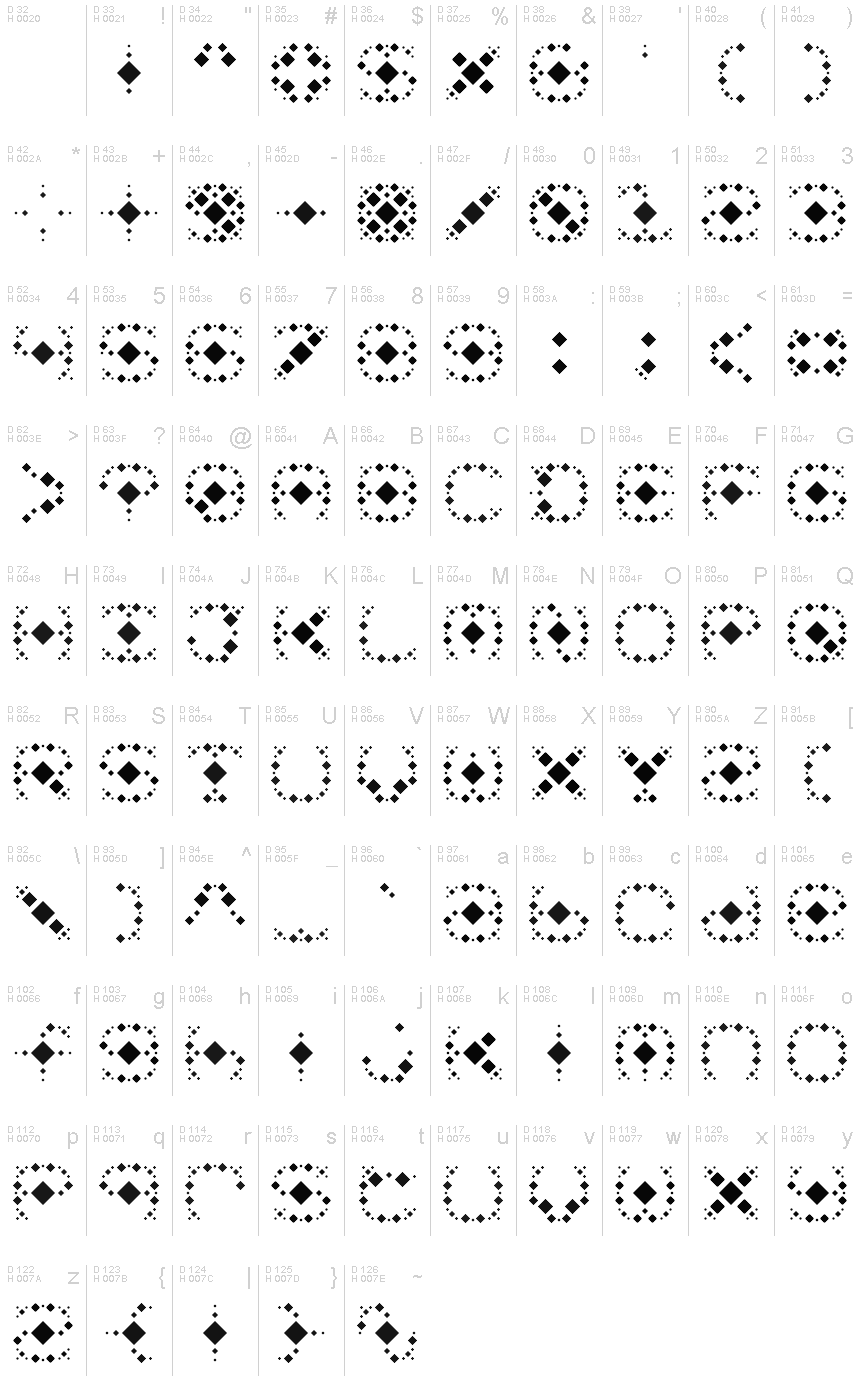
Diamond Eyes Regular
“Diamond Eyes” was built with FontStruct
Designer description: Version 2.3
15SEP2018: I have begun adding diacritics, but they must be made subtractively to fit into the designs. I delete the diamonds around them which lends accented letters an open-topped appearance. This method is experimental but seems readable enough to me...
Inspired by a comment by jonrgrover.
I built diamonds sized according to the Fibonacci series, then made a design out of them. The design was then carved away and modified to make the glyphs you see here. I used the members 1, 2, 3, 5, and 8. These sizes proved most feasible to work with in this sort of arrangement.
I gave the terminals a flared appearance which I think makes the glyphs' outlines look slightly Celtic. The design makes me think of beach sand and things found on the beach - shells, pretty rocks, and so on.